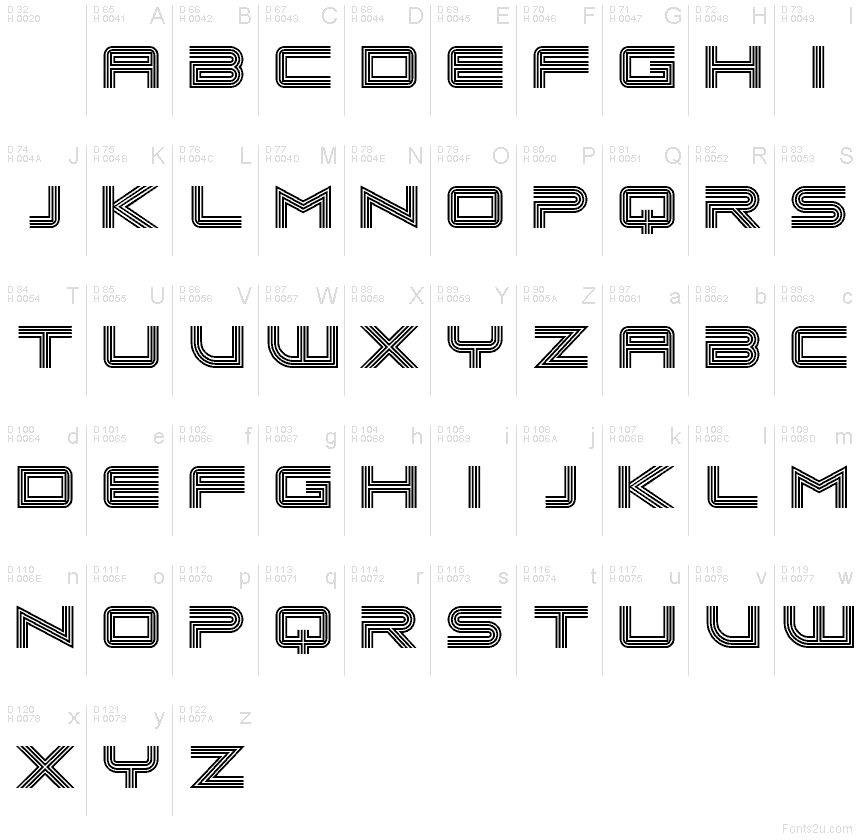
Moto Race Extravagant Regular
Moto Race Extravagant font by Vladimir Nikolic is a bold and expanded display font with geometric and symmetrical features that are both futuristic as well as mechanical. This structured typeface exhibits retro-inspired industrial aspects.